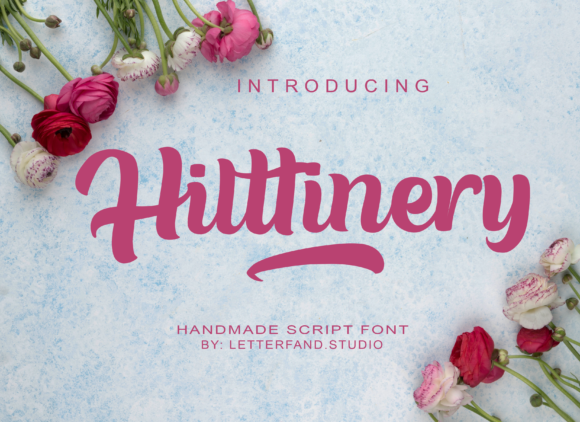
In a world saturated with digital noise, your words have the power to cut through the clutter and leave an indelible mark. Allow Hilttinery, a breathtaking script font, to become your artistic ally in crafting messages that resonate with your audience. Born from the creative forge of Letterfand.Studio, Hilttinery is a visual masterpiece that dances across the screen, captivating hearts and igniting imaginations.
With its bold, hand-drawn letters, Hilttinery exudes a raw and genuine charm that breathes life into your words. Each character carries the weight of authenticity, making your messages feel deeply personal and heartfelt. Whether you're crafting social media posts, designing marketing materials, or creating heartfelt letters, Hilttinery provides the perfect backdrop for your creative expression.
Step into the spotlight and let Hilttinery transform your words into moving pictures that unfold before your audience's eyes. Its bold strokes command attention, while its graceful curves add an undeniable touch of elegance. Hilttinery is the ultimate font for TV credits, where every name and title deserves to shine. Imagine your message emblazoned across the screen, leaving an unforgettable impression that lingers long after the credits have rolled.
Beyond the realm of TV, Hilttinery's versatility shines through in countless other applications. Unleash your creativity and watch as your words take on a new life in logos, branding, posters, invitations, and even personal crafting projects. Hilttinery's boundless potential is a canvas for your imagination, where every stroke of your keyboard becomes a brushstroke of artistry.
Embrace Hilttinery, the font that breathes life into your words and captivates your audience. Let your messages soar to new heights, leaving a trail of beauty and inspiration in their wake. Hilttinery is more than just a font; it's a key that unlocks the door to a world of creative possibilities. Download Hilttinery today and embark on a journey of self-expression like never before.